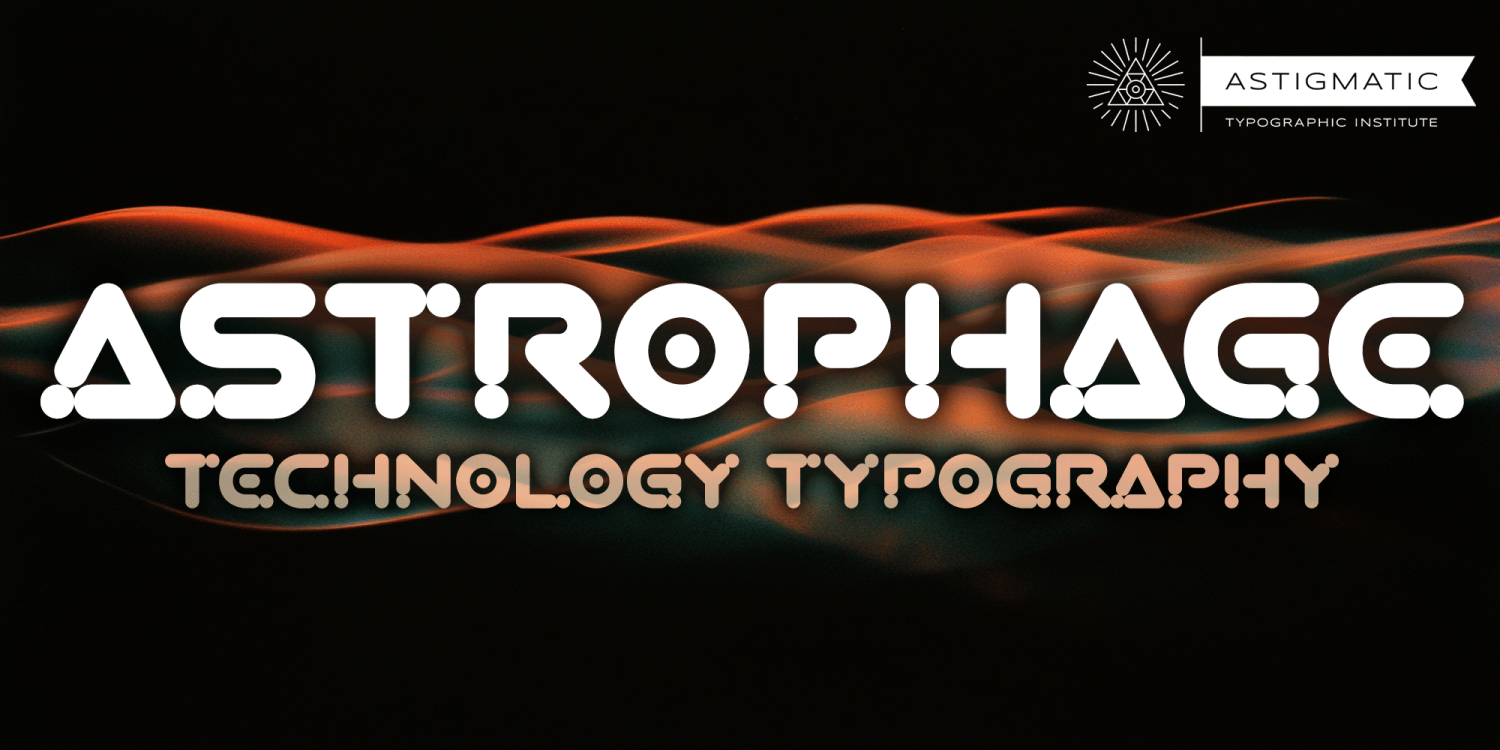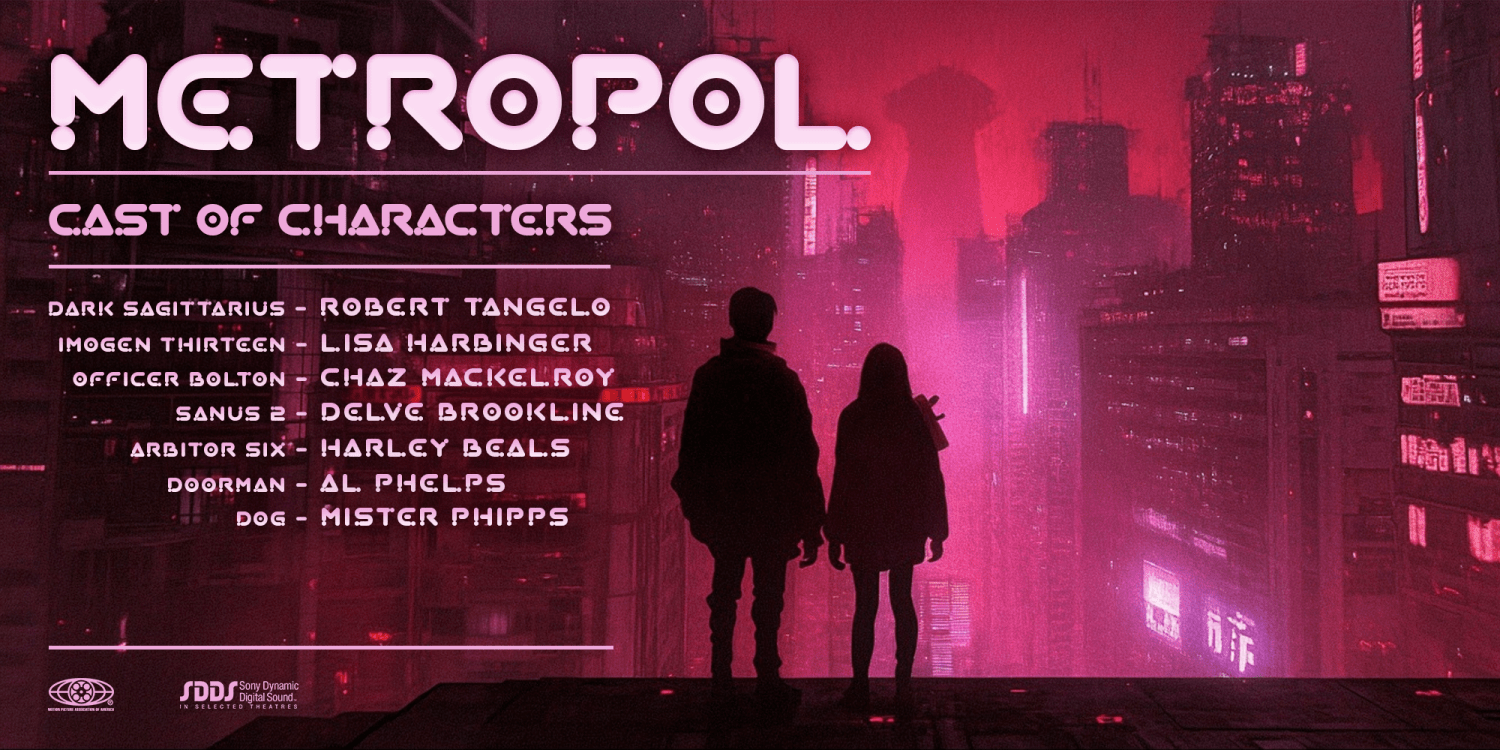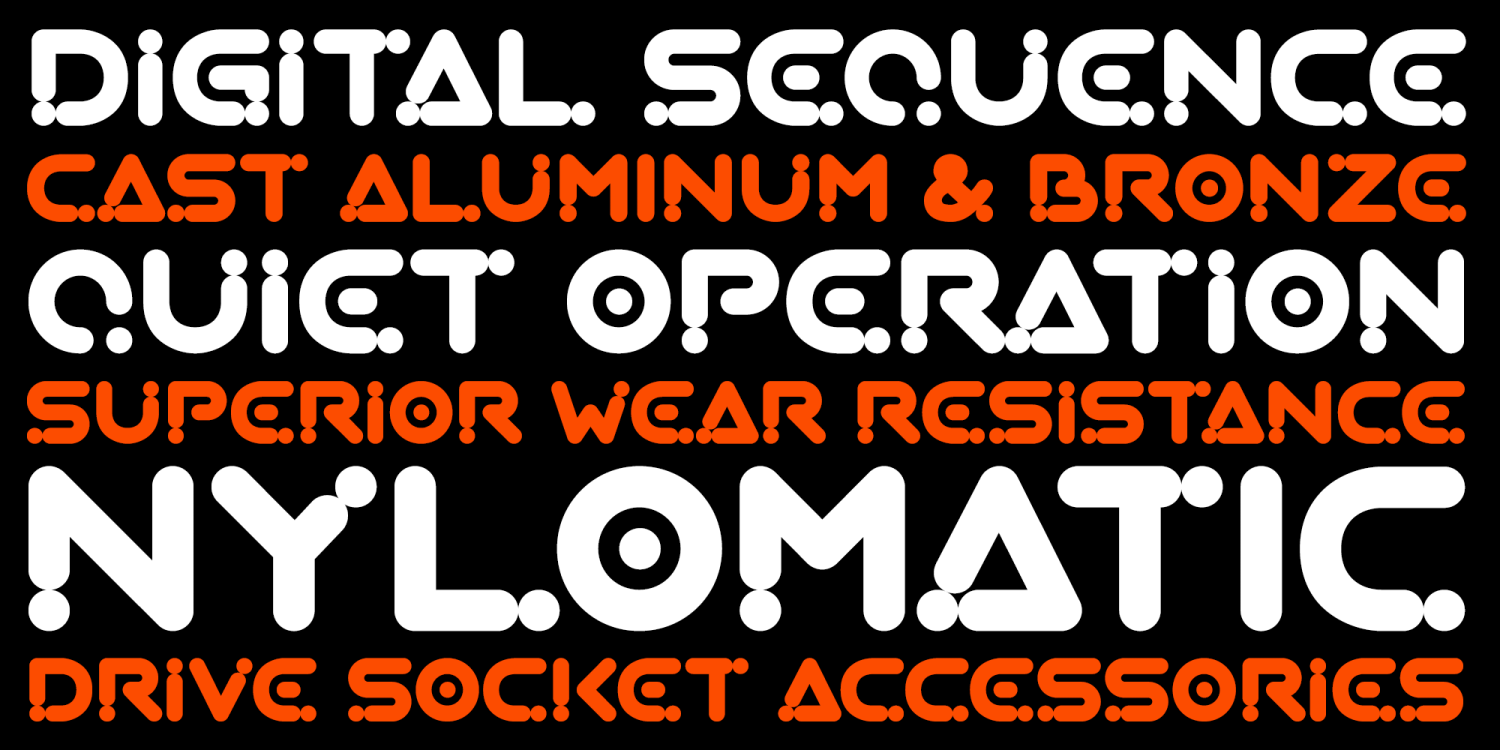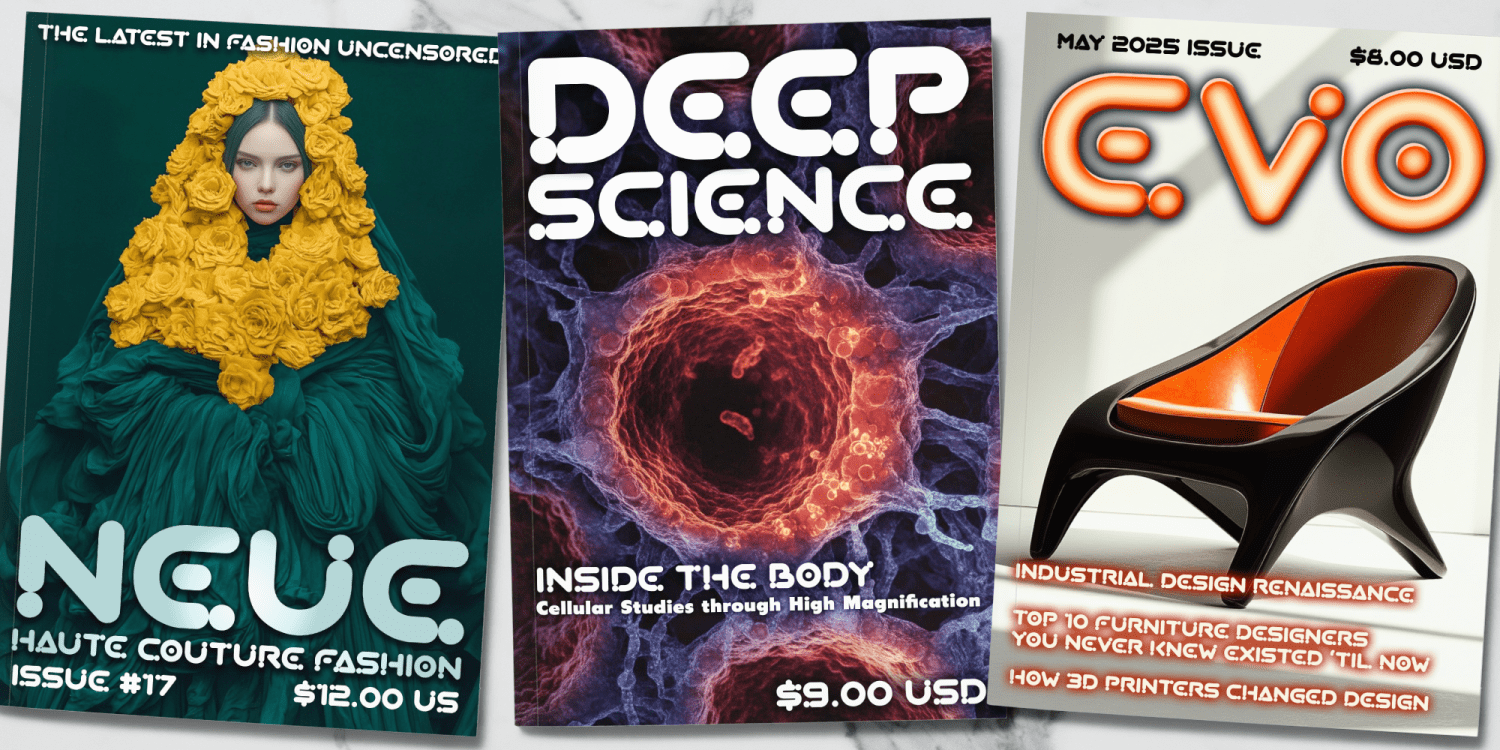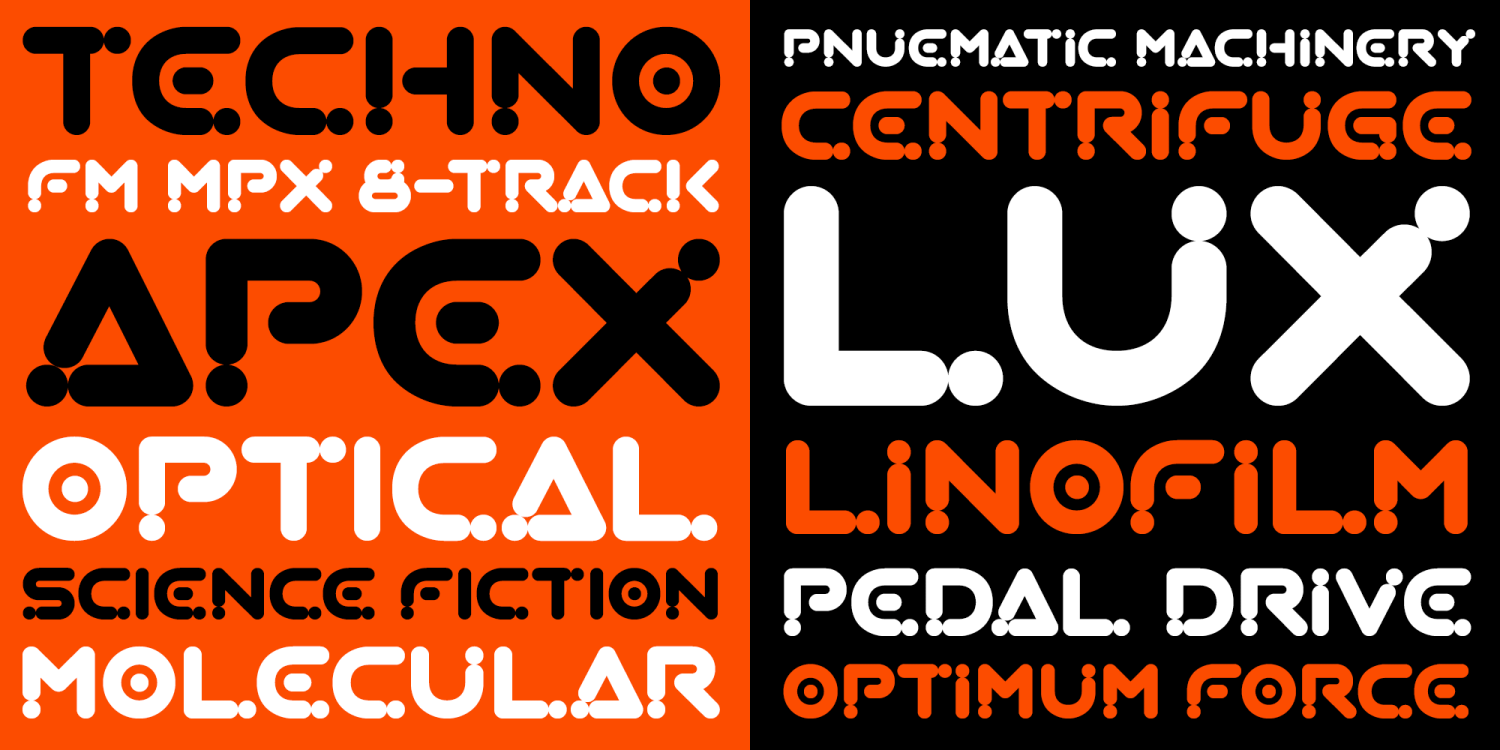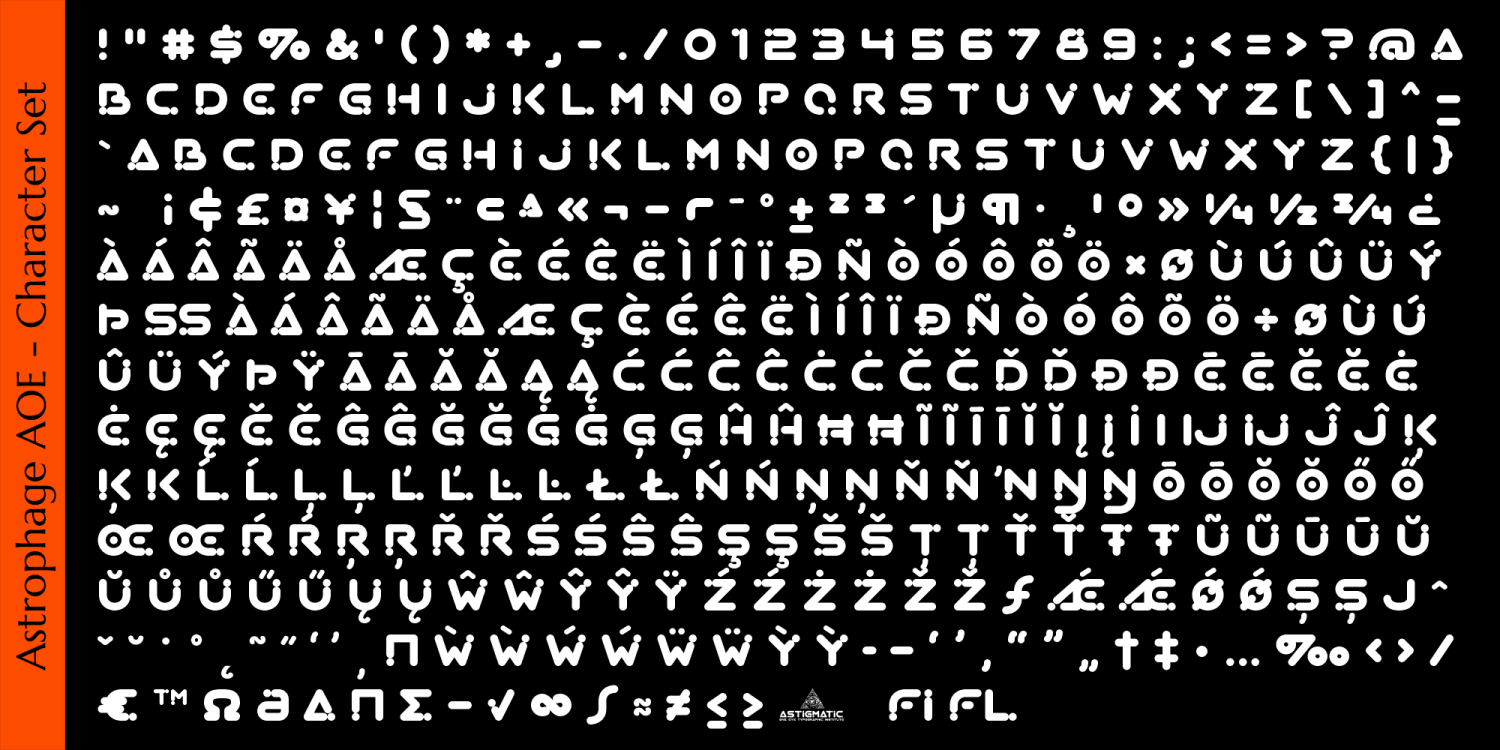
Astrophage AOE
Astrophage AOE is a lettering style I started as a design for one of my logos that appeared on a few tee shirts for Astigmatic back in early 2000. Not really a typeface, just the letters for ASTIGMATIC. And there it sat for 25 years, until I stumbled back onto the original files and it stirred memories of the original crop circle appeal I was into when I first designed it.
That trip down memory lane convinced me to finally make this into a fully fleshed out typeface. I really love this techo style, and hope you'll find enjoyment using it in your designs.